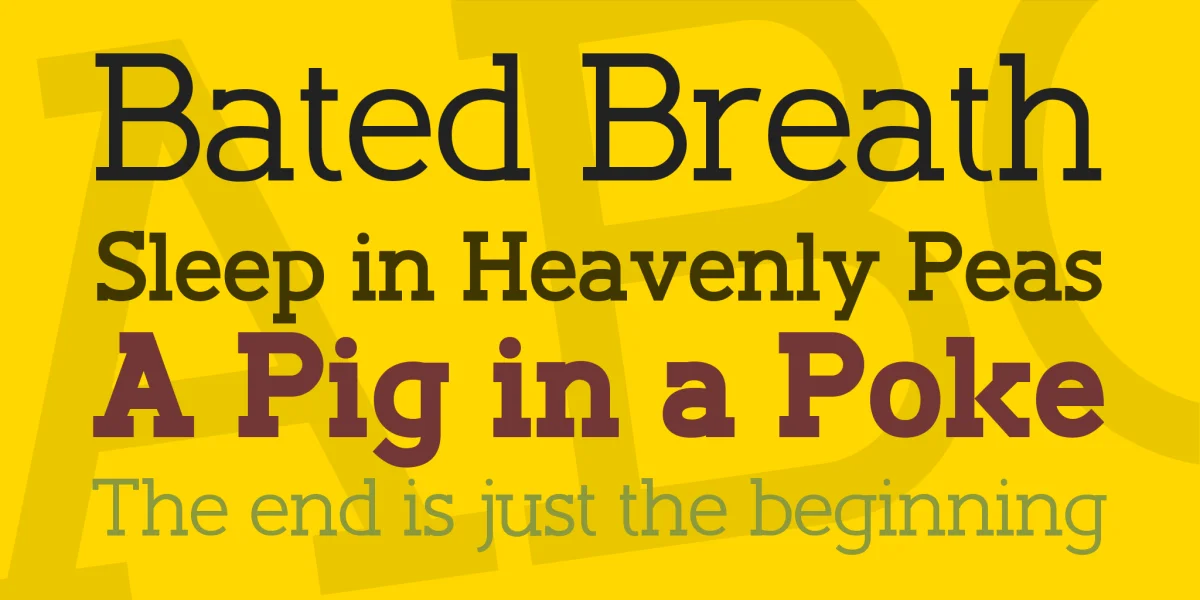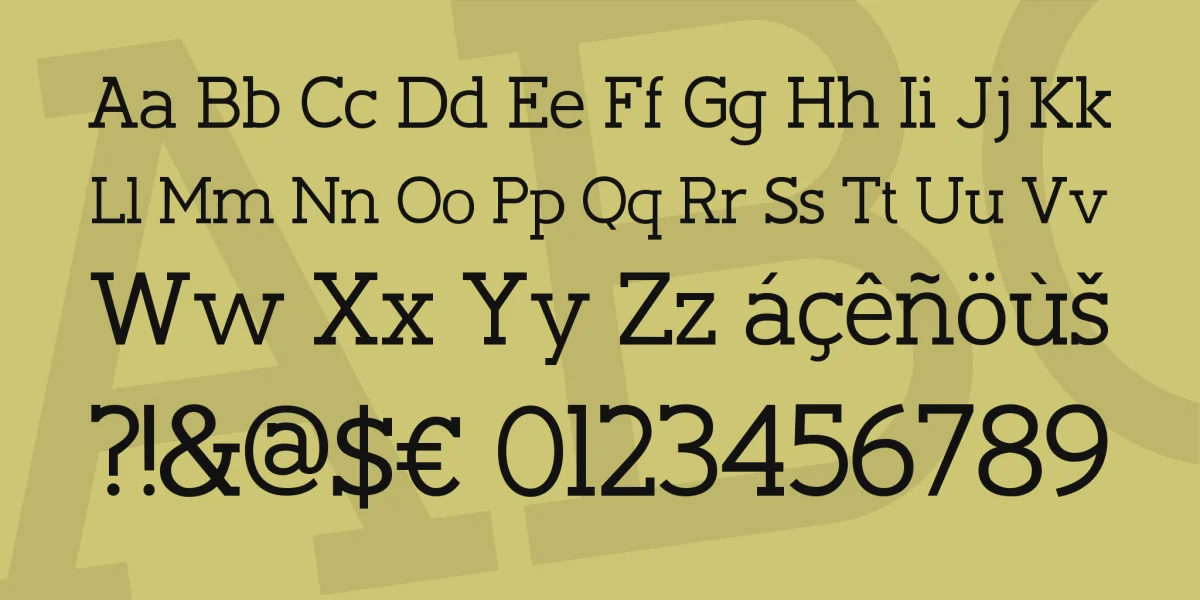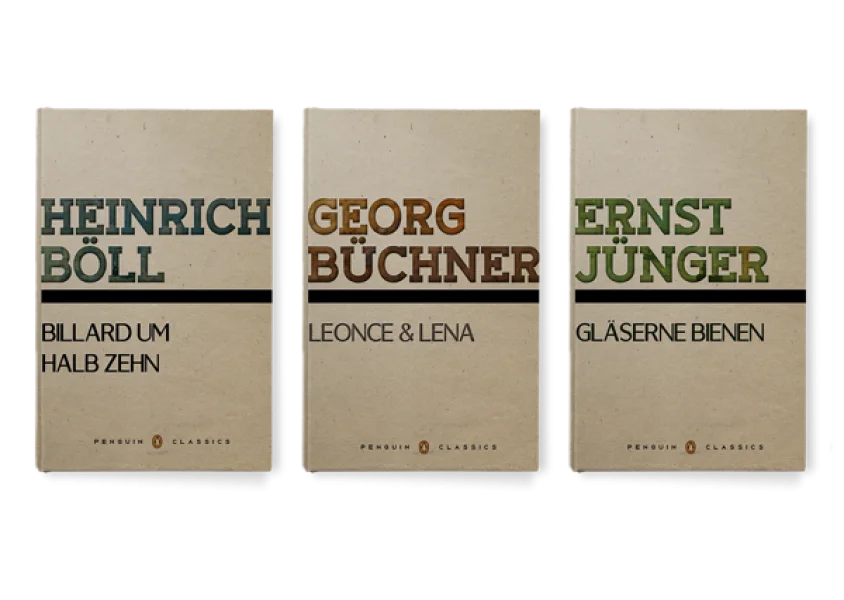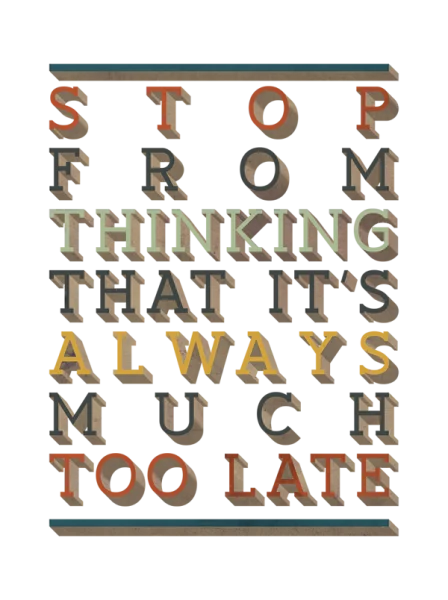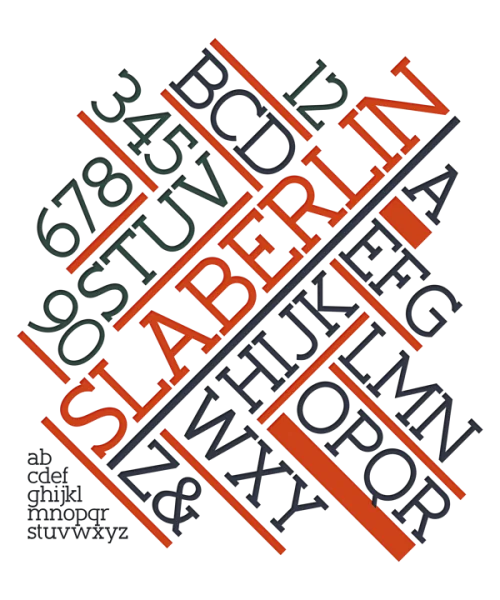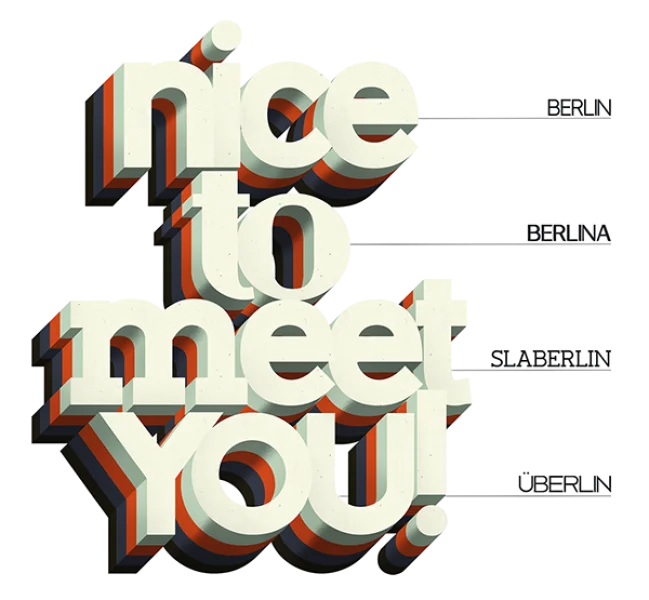
Slaberlin Font Family
Designed by Antonio Rodrigues Jr
Berlin is a group of display fonts inspired by the classic geometric typefaces from early last century. It features (so far) four versions, each one in three weights: regular, bold & X-bold.
Earlier this year Mark and I started working on Mr Red’s re-designs. Back then we thought about creating a font system to be used on the sayings and promo material.
I am still far from being a type designer, and the process was taking too much time. We ended up deciding for the handmade designs and the font was put on hold.
Nonetheless, I kept on working on it in my spare time and managed to finish a few versions: Berlin, Berlina, Slaberlin and Überlin, all in three weights (Regular, Bold and X-Bold, plus Berlin’s Regular Italics).
They have been named after a song from R.E.M.’s latest album, which I was listening to over and over while working on the first versions of the main characters.